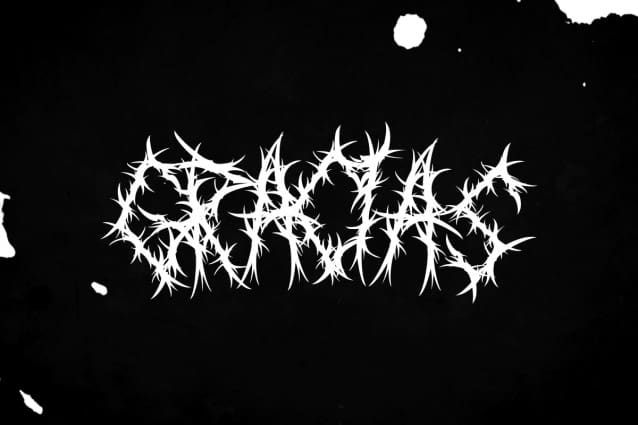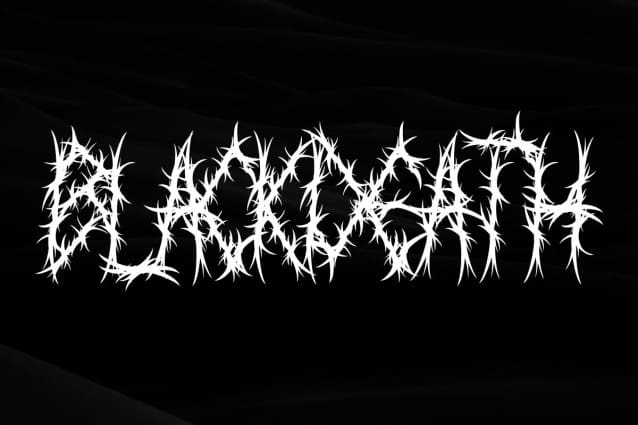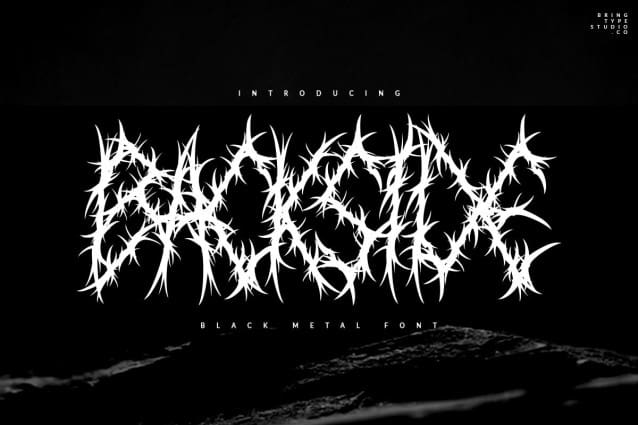
Backside Black Metal Font
Backside Black Metal Font, made with a square line and an exact curve between one and the other, this font is perfect for branding, headings, signatures, logos, blogs, wedding invitations, t-shirts, letterheads, merchandise, signage, labels, news, posters, badges, etc. HILDANE also includes multilingual, numbers, alternatives, punctuation.